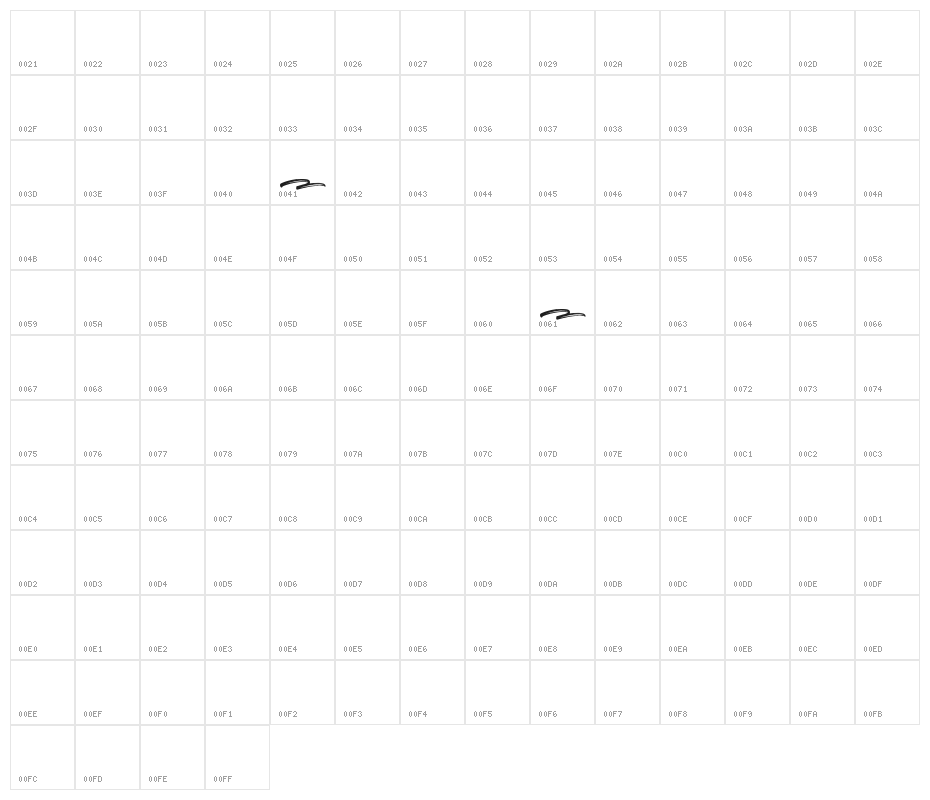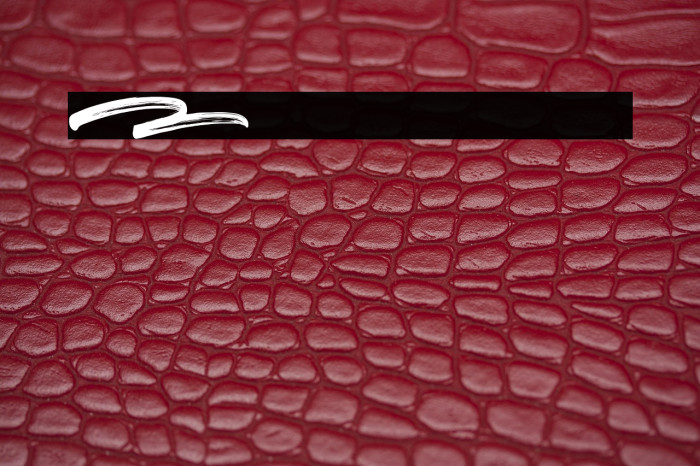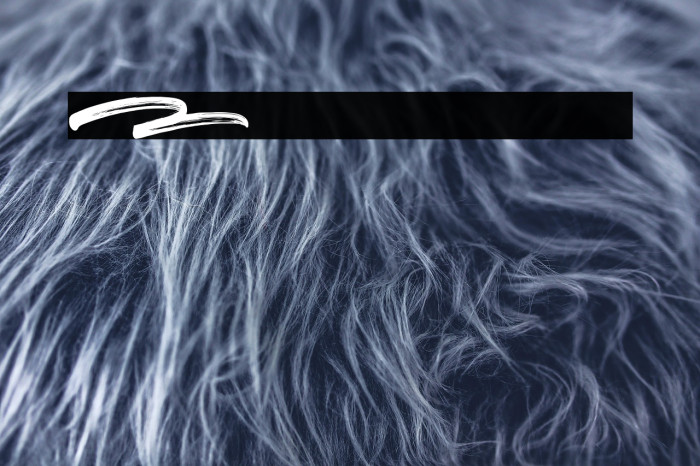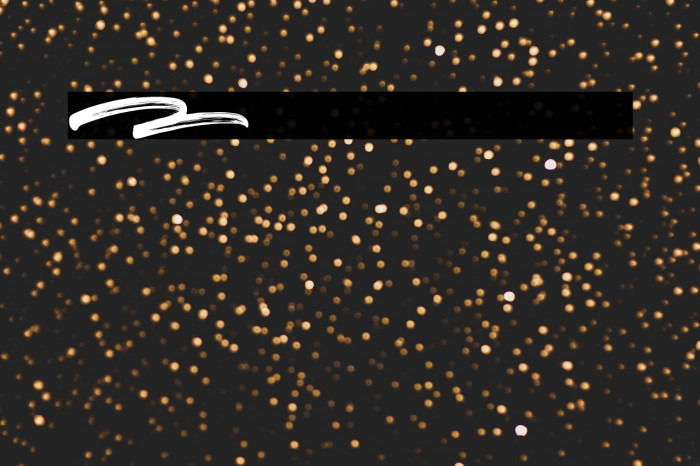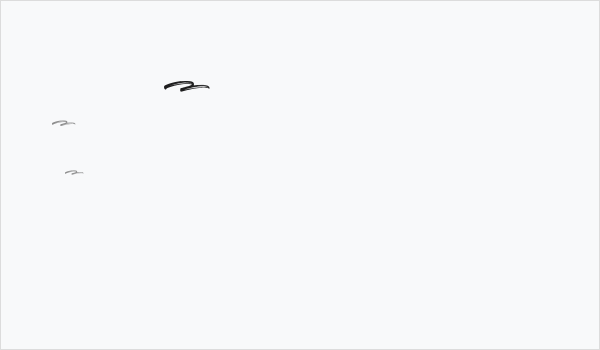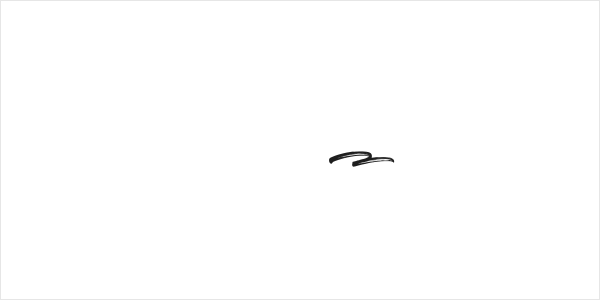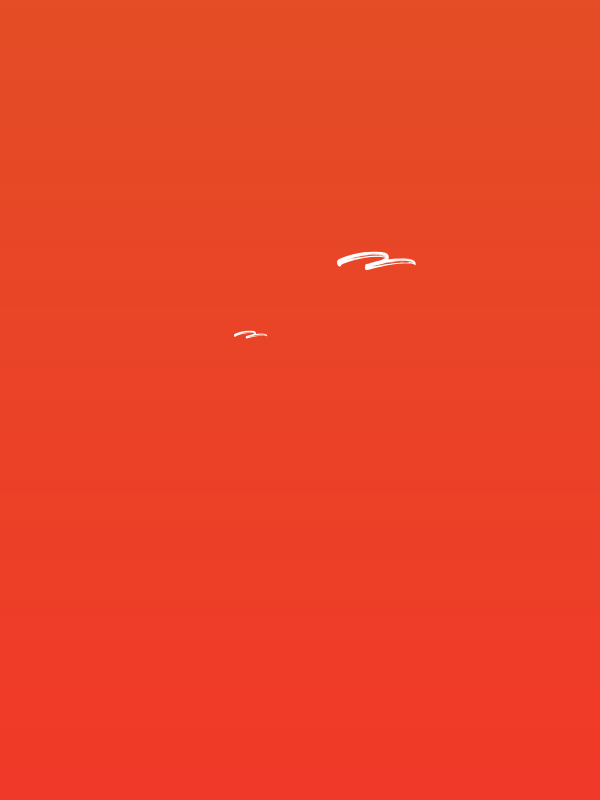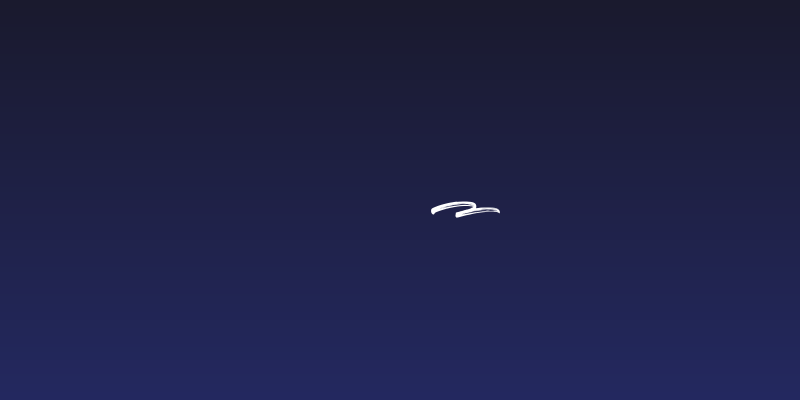
Gorock Brush Swashes Font
Gorock Brush Swashes Description
This design features bold, sweeping brush strokes that convey a sense of dynamic movement and artistic flair. The strokes are thick and expressive, with a hand-drawn quality that adds a personal touch to any project. The style is reminiscent of calligraphy, with a modern twist that makes it suitable for contemporary designs. The strokes vary in thickness, creating a sense of rhythm and flow that is visually engaging.
| Proposed Projects | Ideal for artistic projects, logo design, posters, and invitations where a personal and creative touch is desired. |